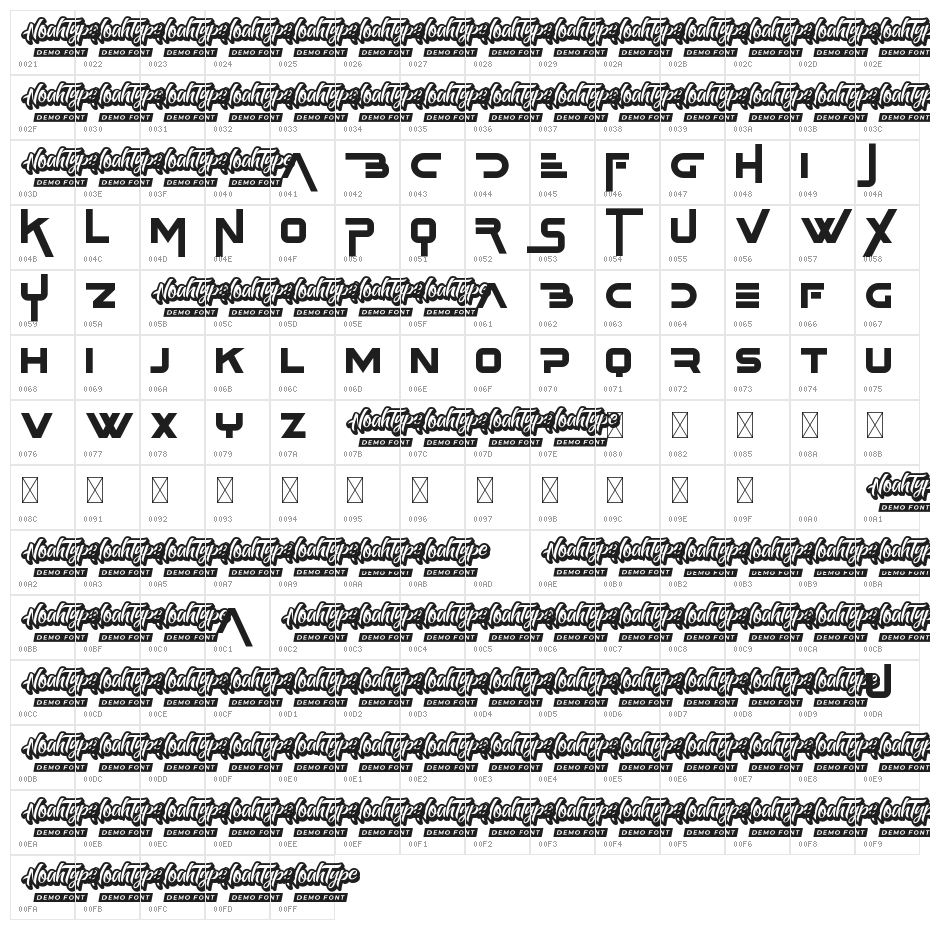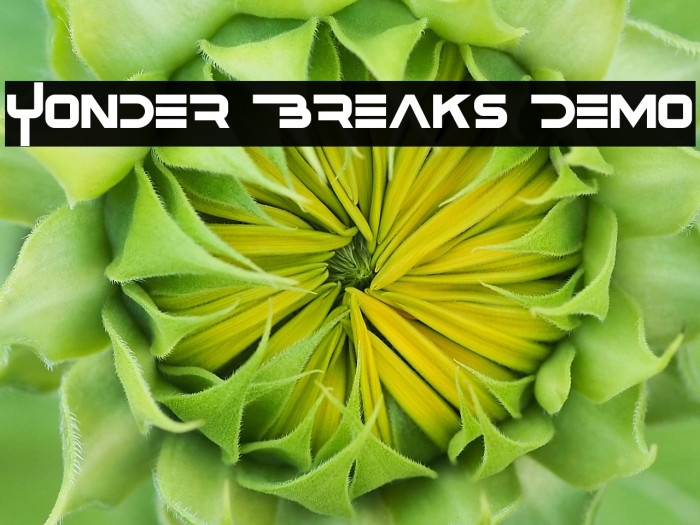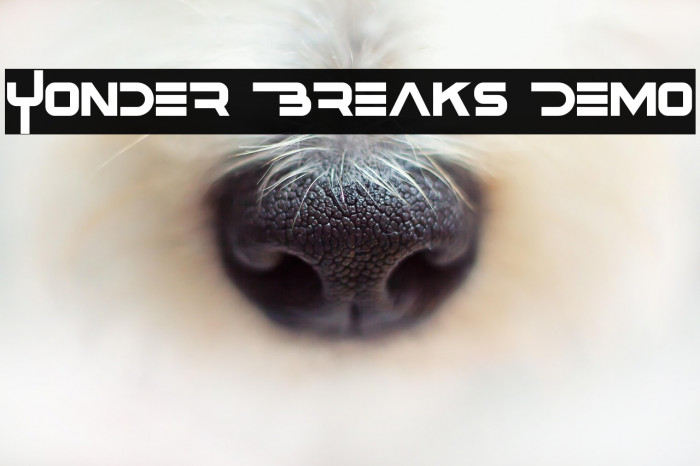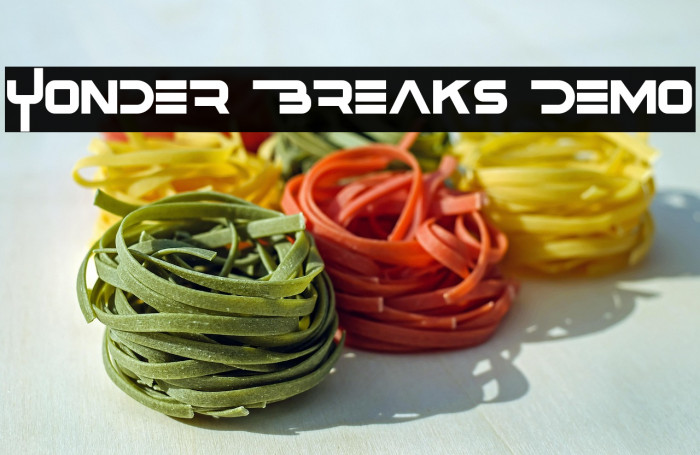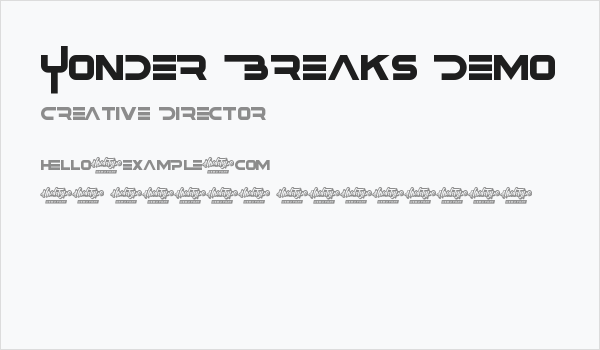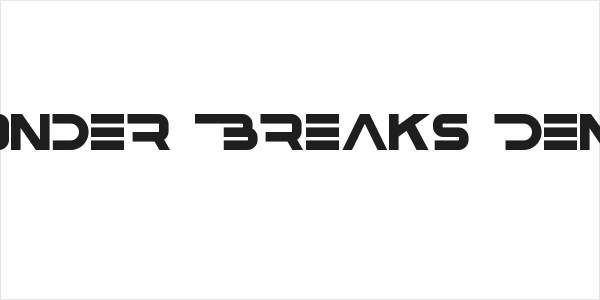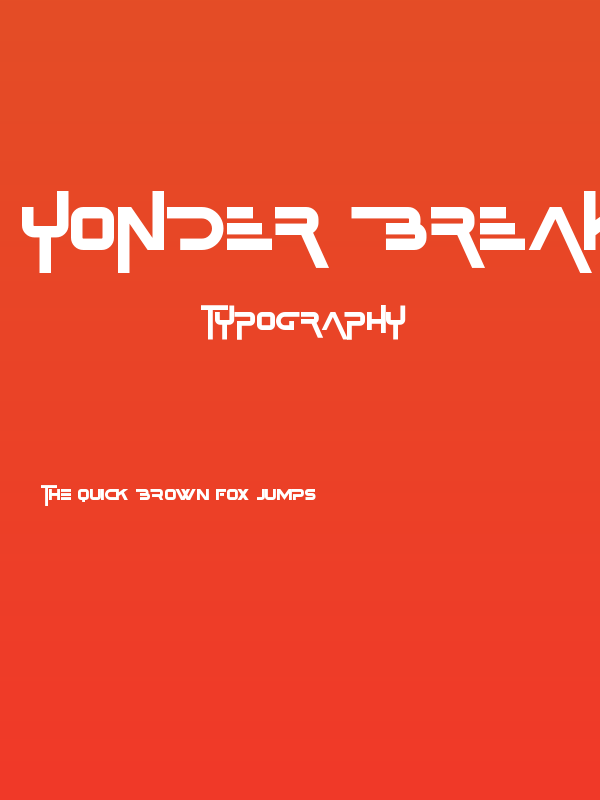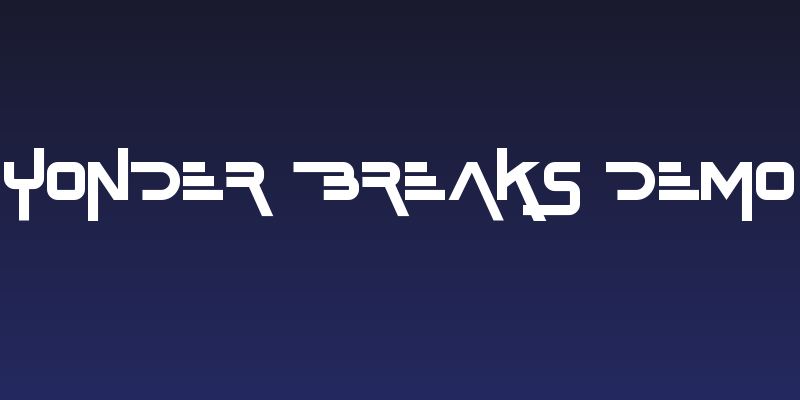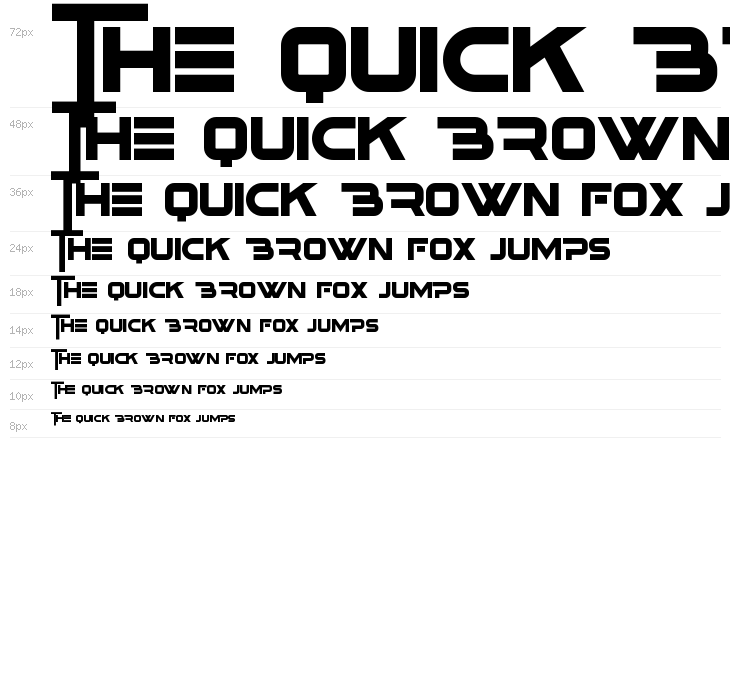
Yonder Breaks Demo Font
Yonder Breaks Demo Description
This font features a futuristic and geometric design with sharp angles and clean lines. The uppercase letters are bold and striking, with unique cuts and shapes that give them a modern, tech-inspired look. The characters are consistent in height, creating a uniform appearance across the alphabet. The font's style is reminiscent of digital or sci-fi themes, making it ideal for projects that require a contemporary and edgy aesthetic. Its distinctiveness is further enhanced by the angular design of certain letters, which adds a dynamic and innovative touch.
| Proposed Projects | Ideal for sci-fi movie posters, tech company branding, video game titles, and futuristic event flyers. |